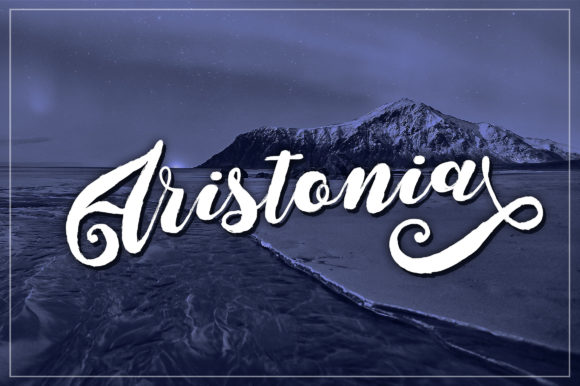
Embark on a captivating journey into the realm of written elegance with Aristonia Font, a script masterpiece that weaves together the allure of timeless style and the authenticity of calligraphy.
Aristonia is more than just a font; it's an artistic expression that captures the essence of cursive beauty. Each letter dances upon the page with an unmatched grace, evoking a sense of effortless sophistication. The perfect blend of classic charm and modern appeal, Aristonia is a font destined to leave a lasting impression.
Step into a world of creative possibilities where Aristonia's versatility shines. Let your imagination soar as you craft exquisite wedding invitations that exude elegance and romance. Transform ordinary stationery into works of art, adding a touch of whimsy to your everyday correspondence. Elevate your social media presence with eye-catching posts that captivate your audience. Bring warmth and joy to your greetings with adorable greeting cards that convey your heartfelt sentiments.
With Aristonia Font, the beauty of cursive unfolds before your very eyes. Its carefully crafted strokes invite you to create designs that resonate with emotion and leave an unforgettable mark. Embrace the magic of Aristonia today and unlock the enchanting power of handwritten elegance.